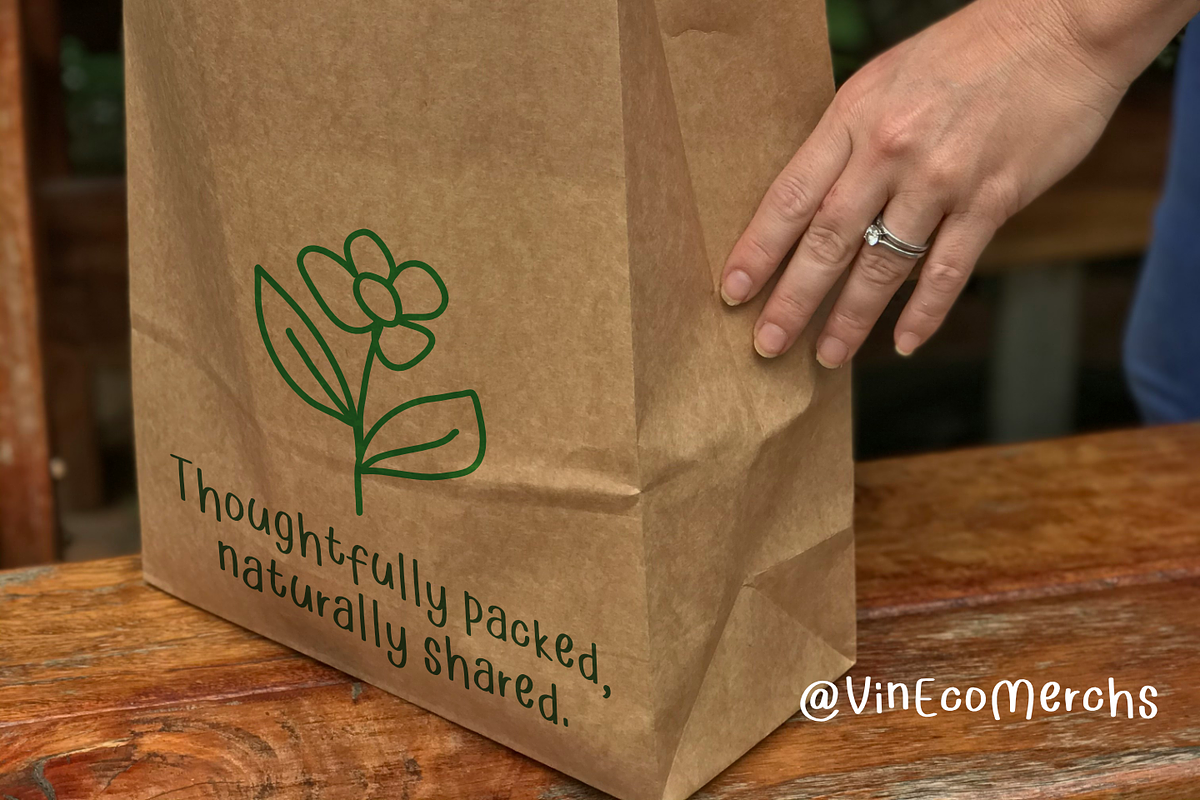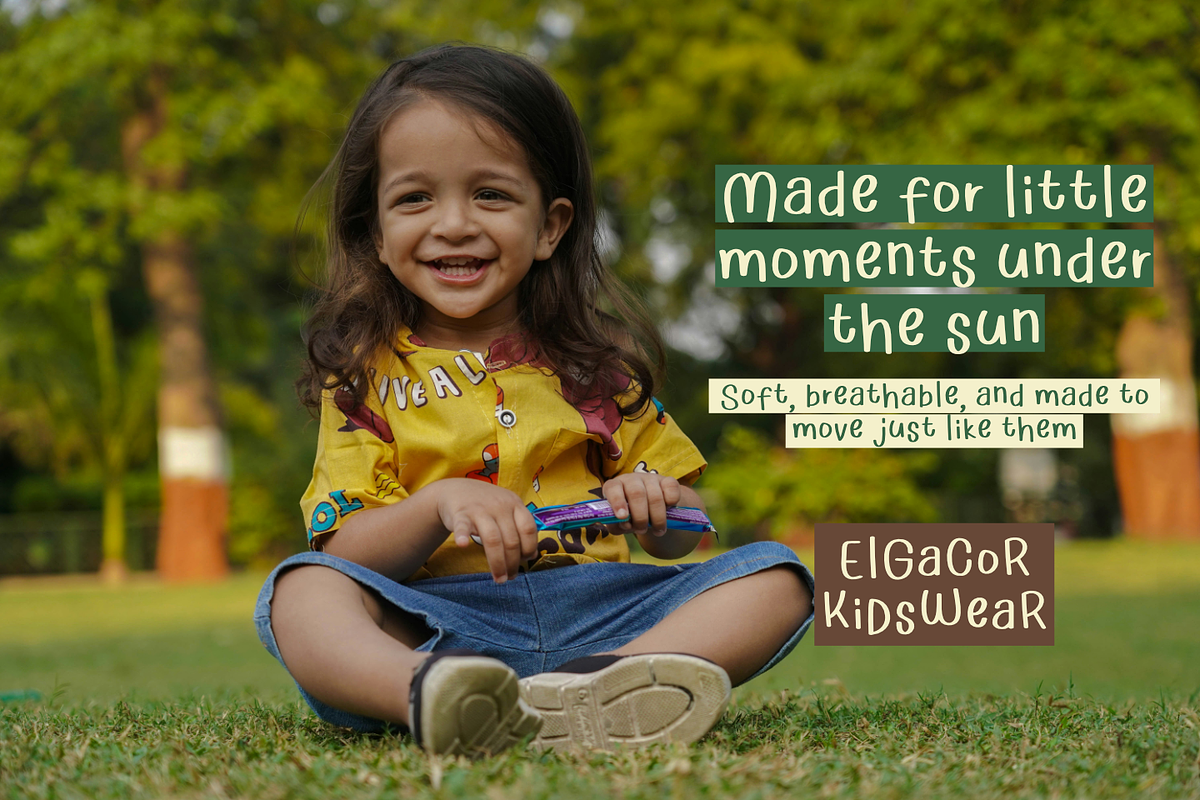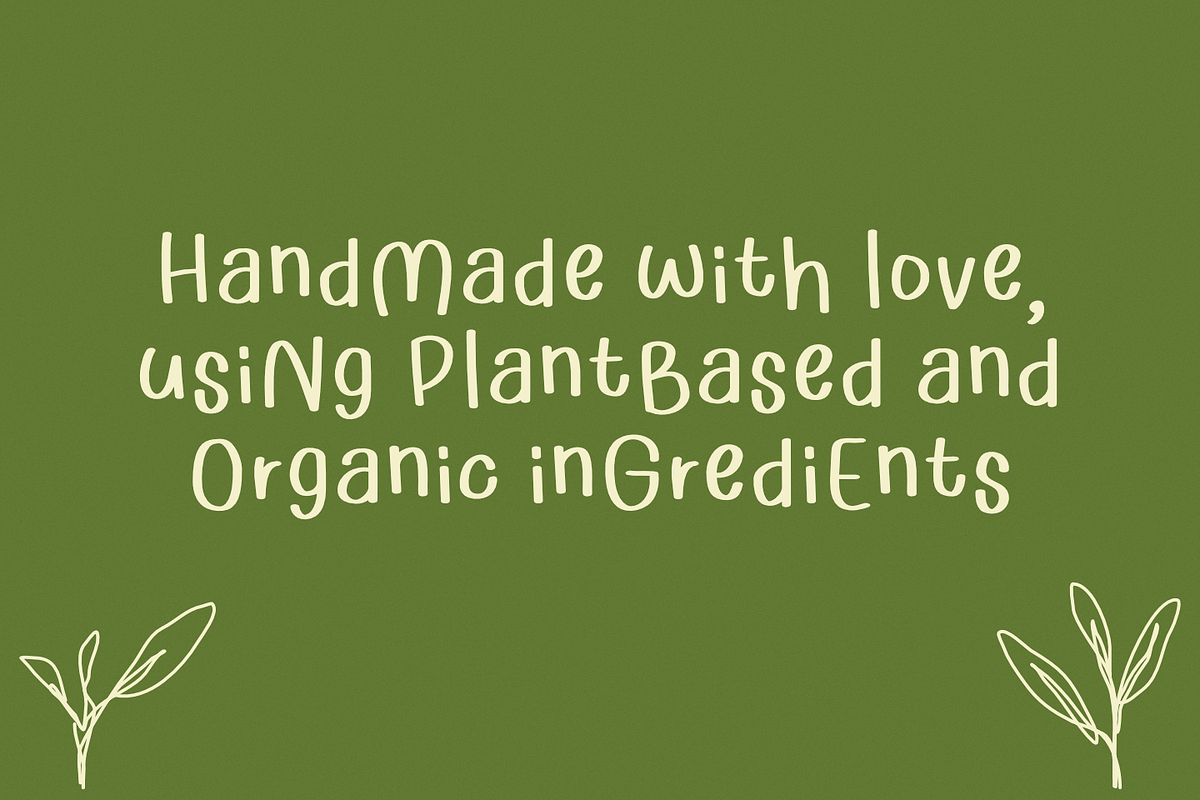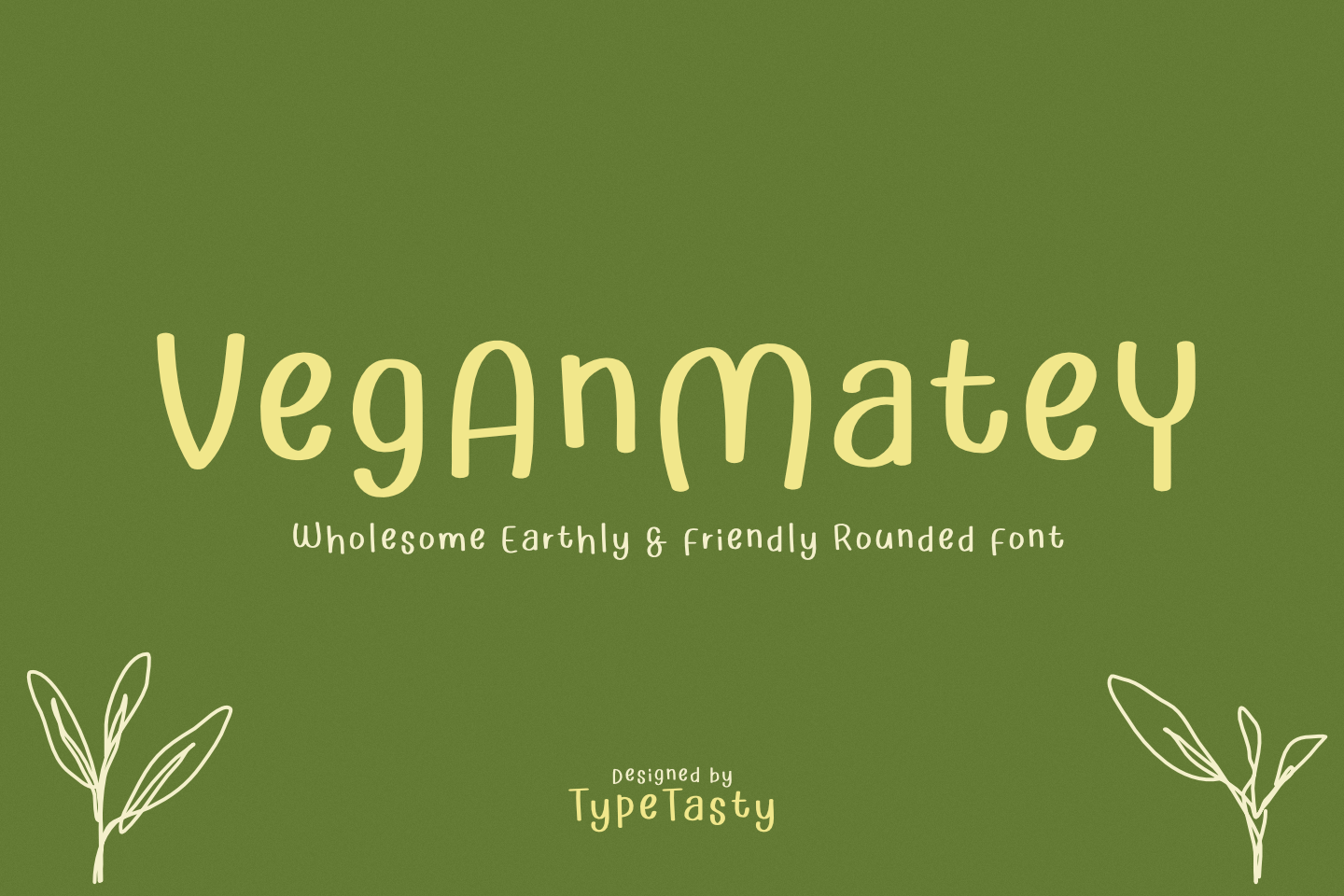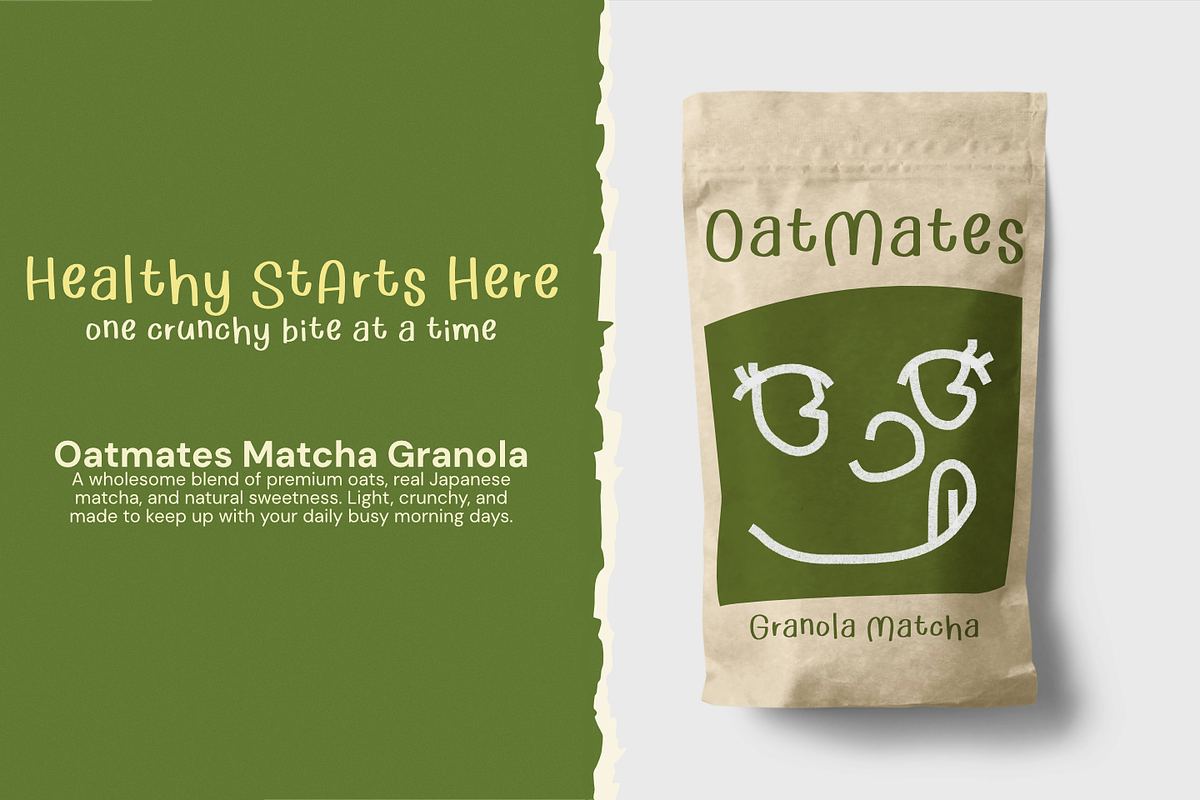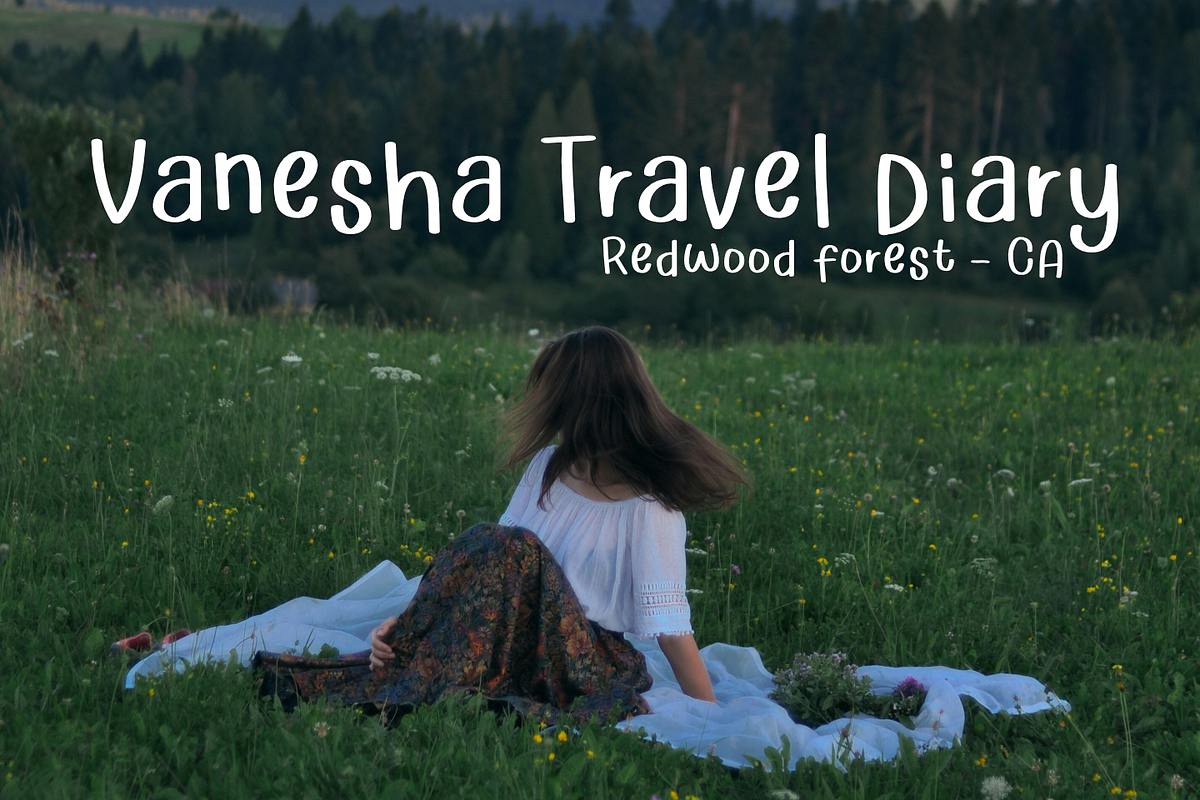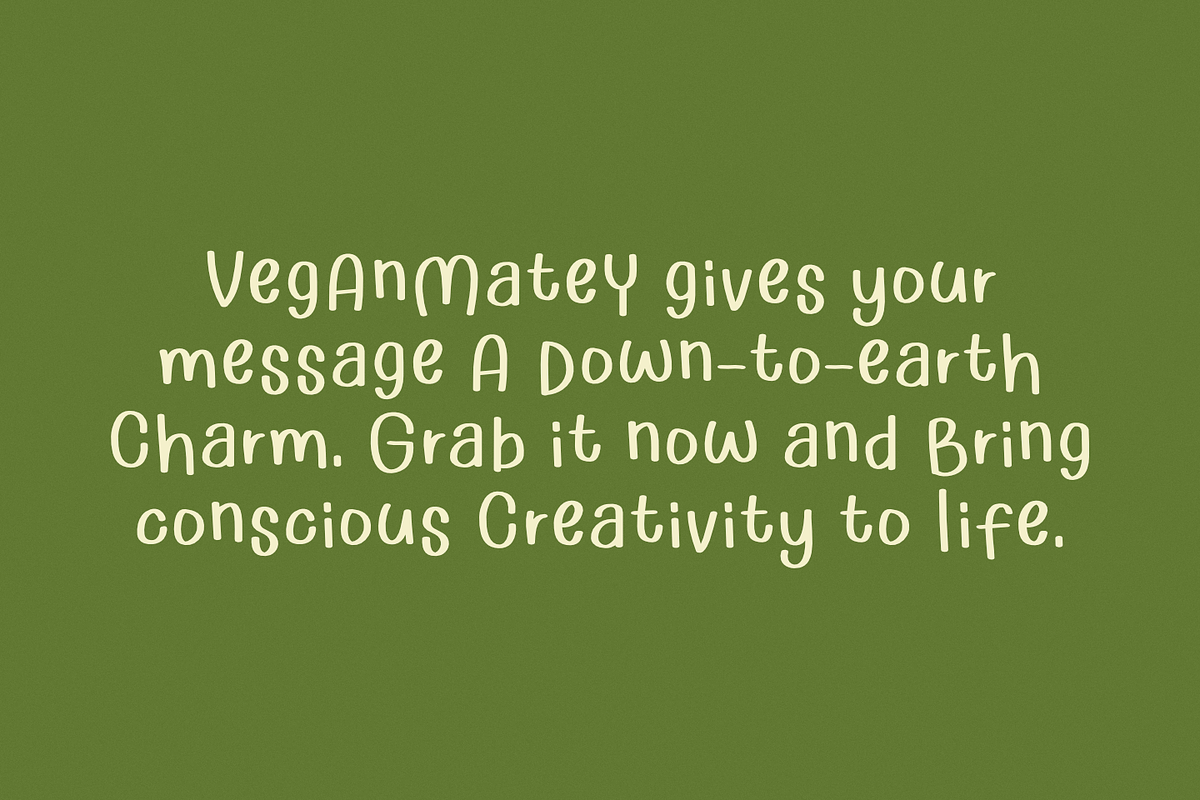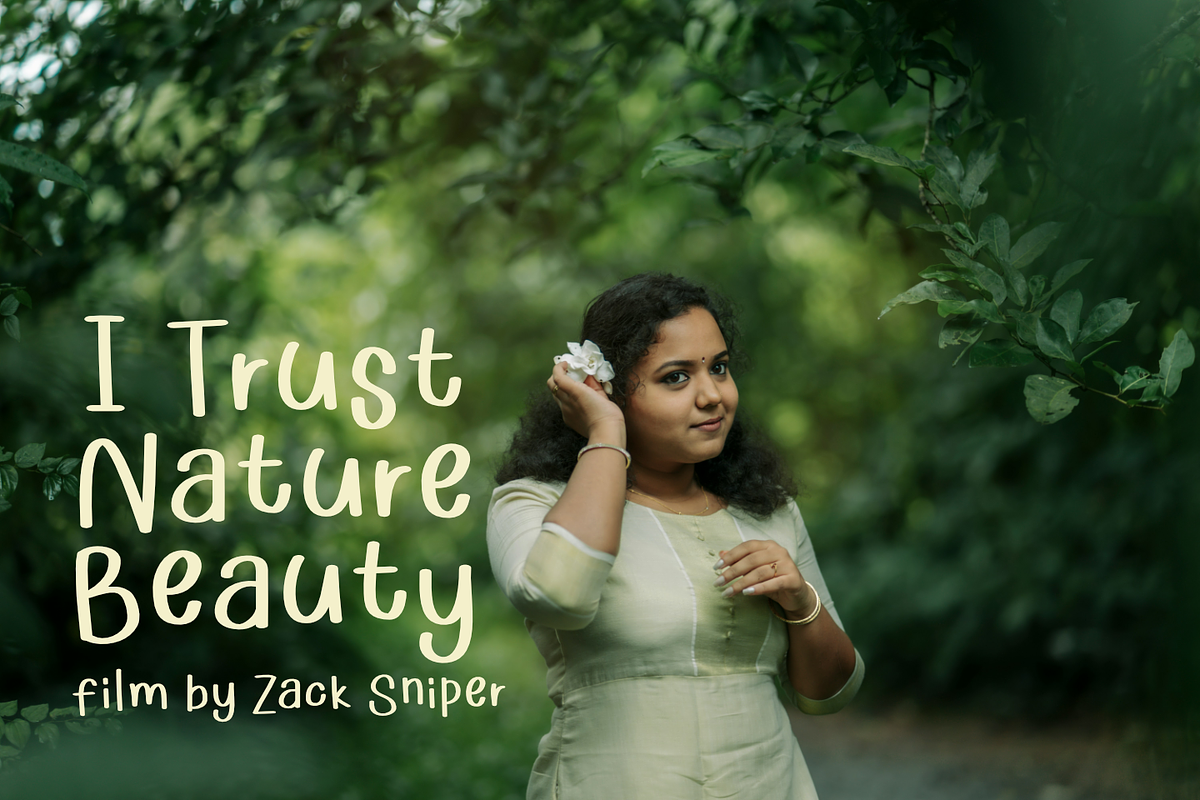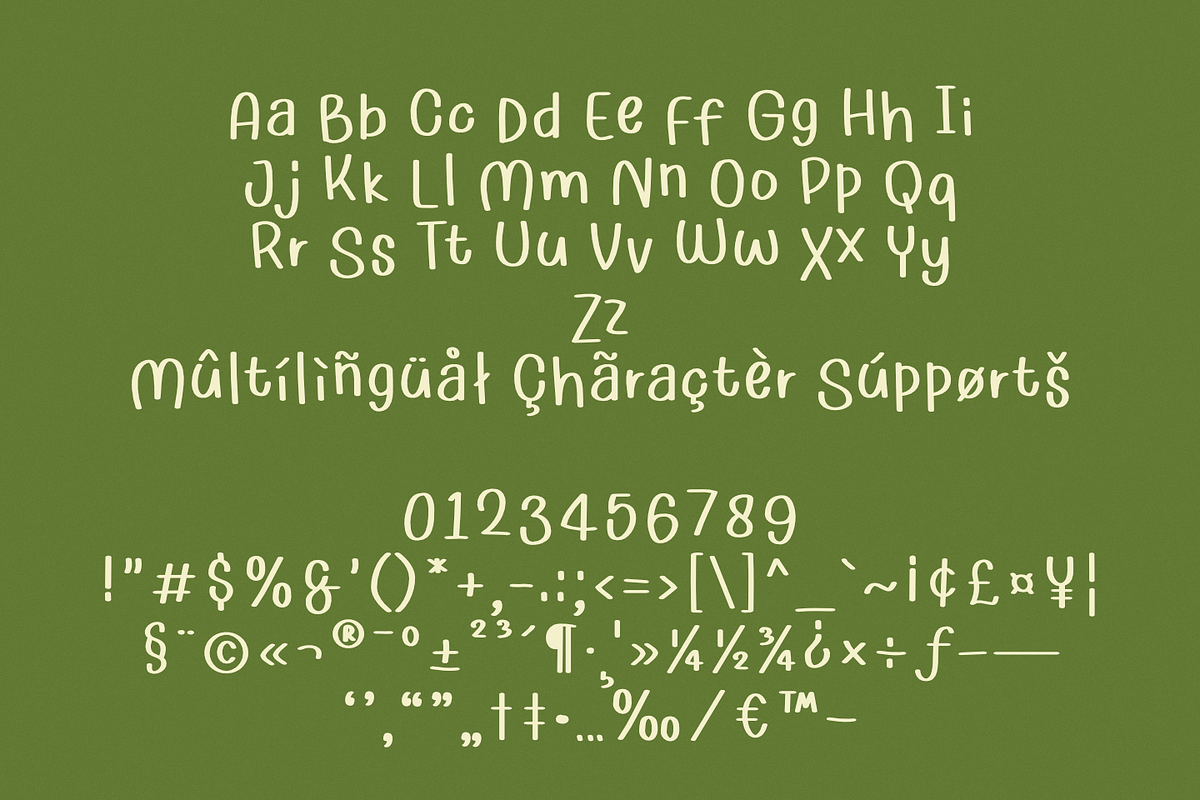
VeganMatey – Rounded Friendly Font
VeganMatey is a rounded, soft-style handwritten font with an earthy and organic tone, perfect for eco-conscious branding, packaging, and digital content. Its calm and clean letterforms make it ideal for plant-based labels, lifestyle quotes, children’s products, or wellness projects. With a friendly handmade feel, VeganMatey helps brands communicate warmth, sincerity, and sustainable values. VeganMatey is a gentle and friendly rounded typeface inspired by wholesome, organic living. With its clean curves and calm personality, it brings a soft, grounded tone to any project—perfect for earth-conscious designs.
Font style & energy: Soft, rounded, wholesome, approachable
Market vibe fit: Eco-branding, organic packaging, plant-based blogs, kids’ food brands, wellness social media
Letterform structure: Handcrafted, monoline, semi-rounded sans-serif with playful bounce
Best use cases:
- Plant-based food branding
- Eco-conscious packaging & stickers
- Instagram quotes for green lifestyle accounts
- Children’s product labels
- Nature blogs & wellness journaling
VeganMatey brings a fresh, natural feeling to your designs—like a font that just came from the farmer’s market. Its friendly curves and grounded flow make it ideal for brands and creatives who want to spread good vibes and green values.
Soft Yet Purposeful
- Rounded edges and calm curves for an inviting tone
- Subtle personality that fits a wide range of earthy, conscious products
Organic Flow & Whimsy
- Slight bounce mimics human handwriting
- Makes your design feel honest, crafted, and authentic
Versatile for Sustainable Projects
- Works beautifully on packaging, signage, or digital eco content
- Built to be both friendly and practical
Let your brand speak with kindness and clarity. Whether you’re designing a label for organic tea or writing quotes for a sustainable lifestyle feed, VeganMatey gives your message a down-to-earth charm. Grab it now and bring conscious creativity to life.